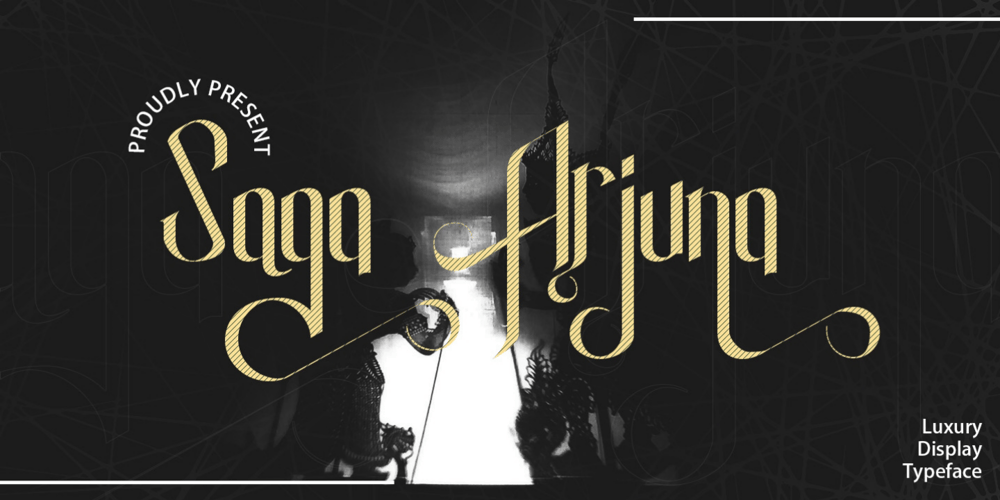
Saga Arjuna Font Family was designed by Rina Kartina and published by Saxofont. Saga Arjuna contains 1 styles and family package options. Saga Arjuna is a modern, elegant and luxurious font with custom alternatives and multilingual support. With a strong desire and grace, it can be used as a logo and title. Great for books, product packaging, advertisements, brands and more.